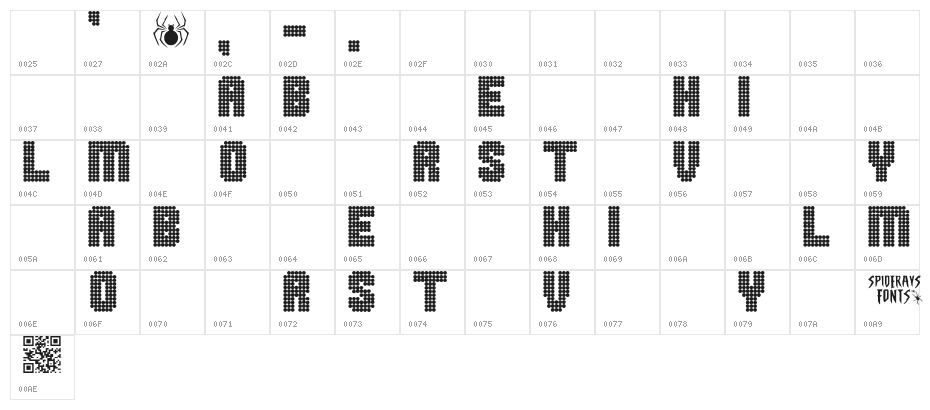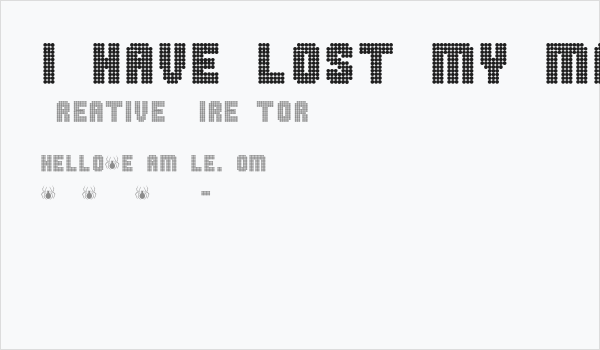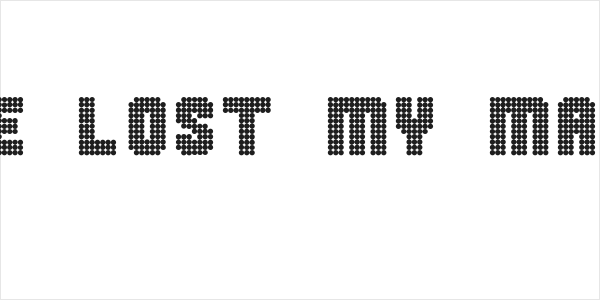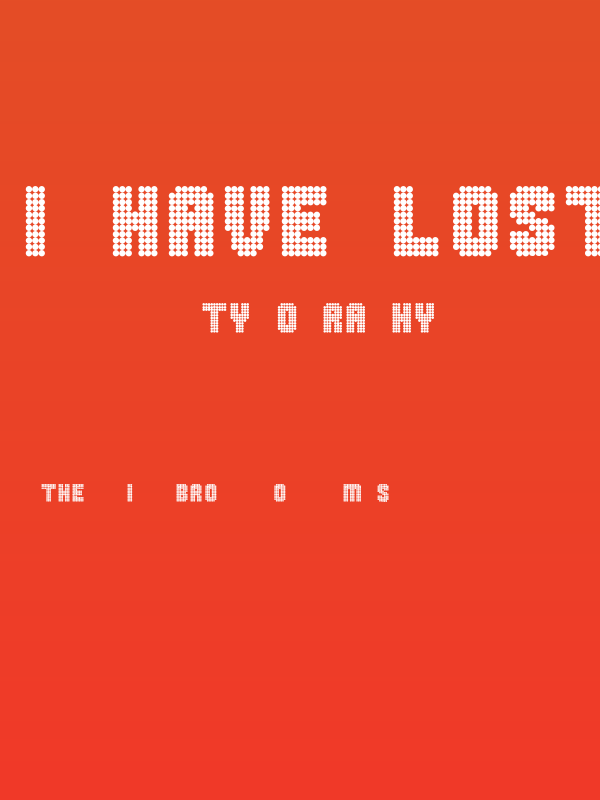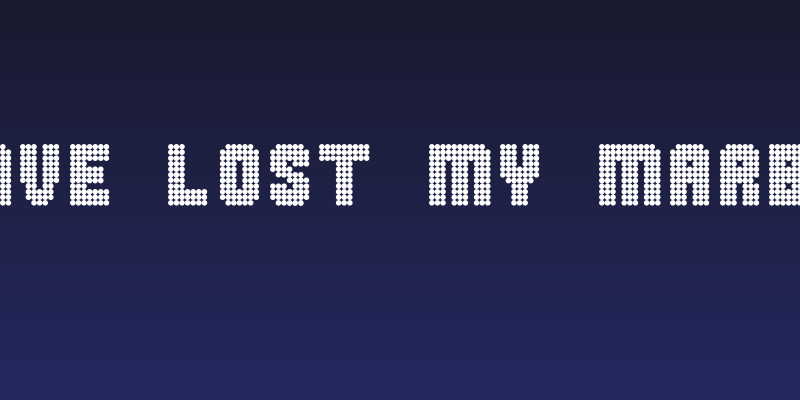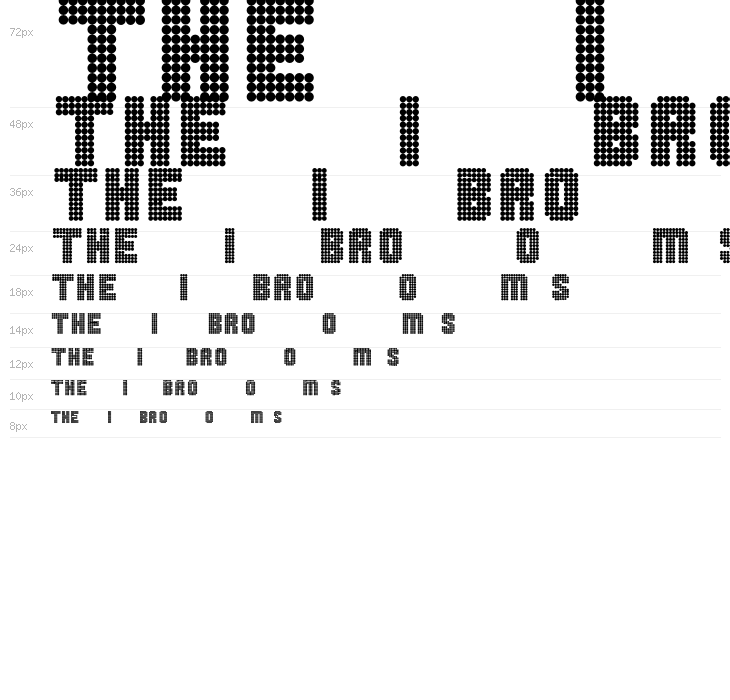
I HAVE LOST MY MARBLES Font
I HAVE LOST MY MARBLES Description
This font features a unique design composed of small, evenly spaced dots forming each character. The letters are bold and blocky, giving a pixelated or digital appearance. The style is consistent across uppercase and lowercase letters, as well as numbers and special characters. The overall look is playful and modern, making it stand out with its distinctive dotted pattern. This font is ideal for creative projects that require a fun and eye-catching typeface.
Proposed ProjectsIdeal for digital art, video game graphics, posters, and creative branding.